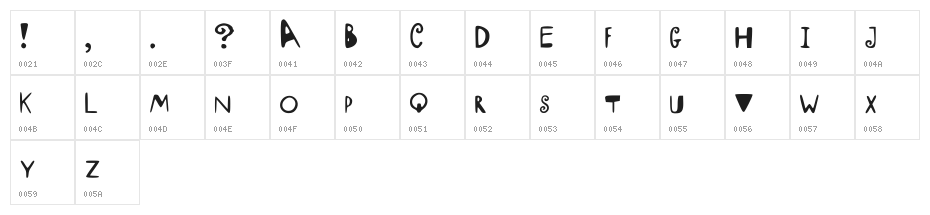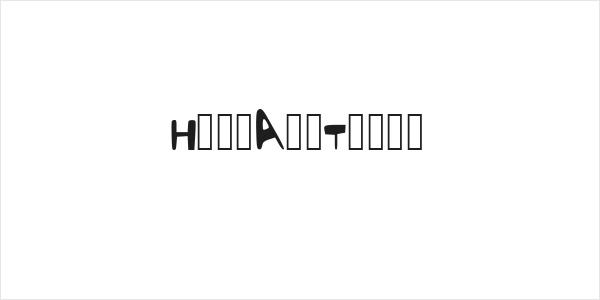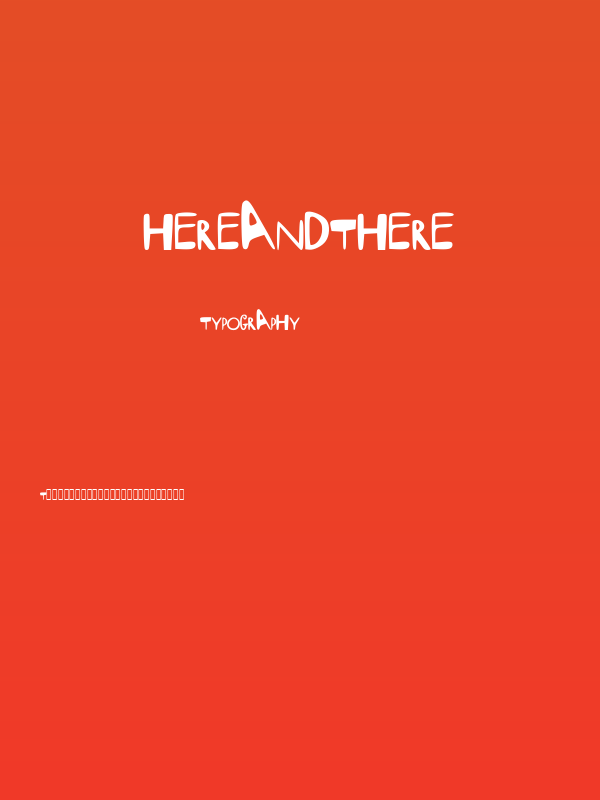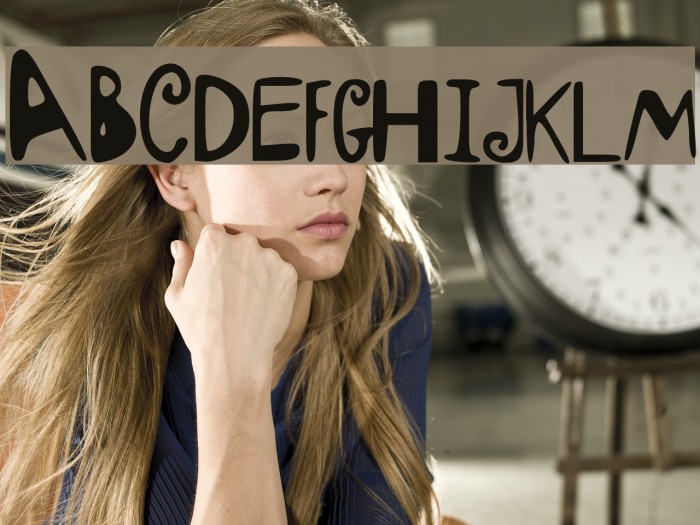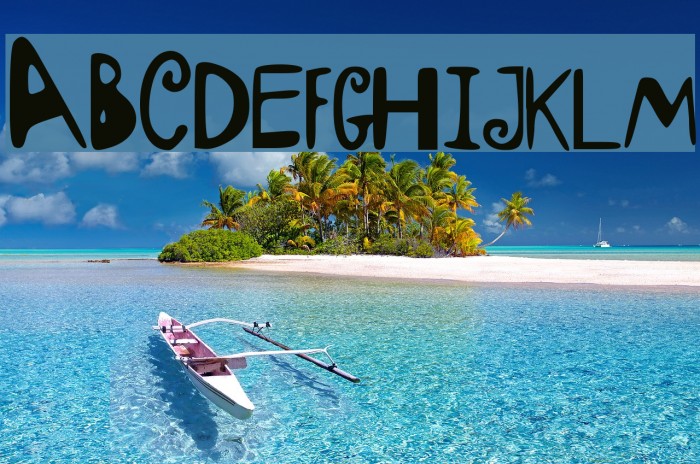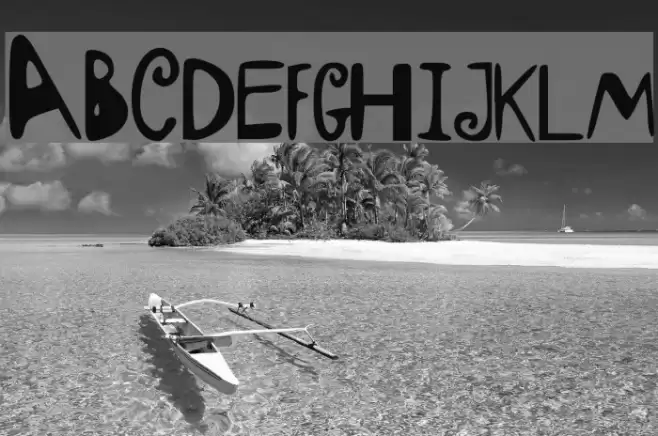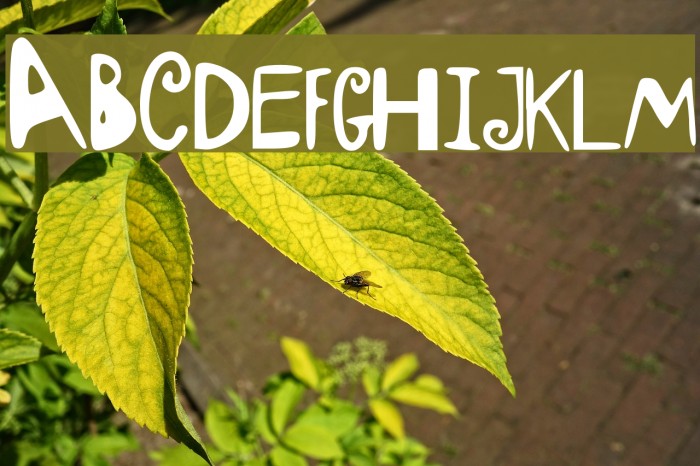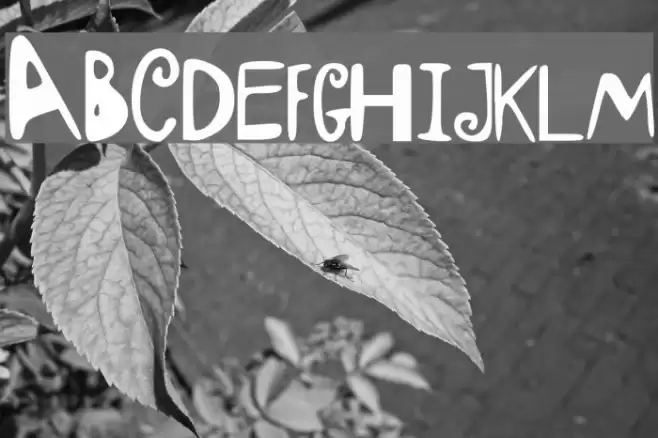
HereAndThere Font
HereAndThere Description
This font features a playful and whimsical design, with each letter exhibiting a unique and quirky style. The uppercase letters are bold and varied, with some characters incorporating unexpected shapes and curves. The font lacks lowercase letters and numbers, focusing instead on a distinctive uppercase alphabet and a few special characters. The overall appearance is dynamic and eye-catching, making it suitable for creative and informal projects. The font's irregular shapes and bold strokes give it a lively and energetic feel.
| Proposed Projects | Ideal for children's book covers, playful posters, creative branding, and fun event invitations. |